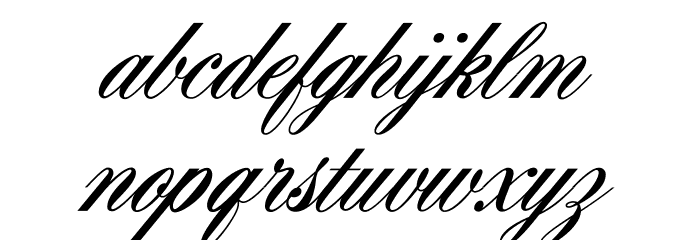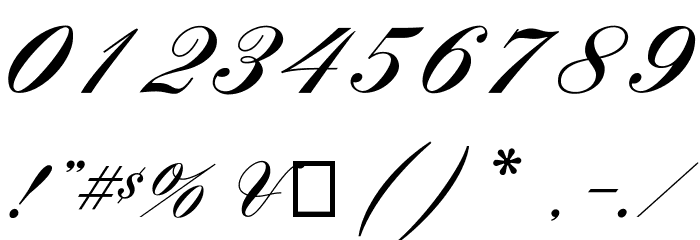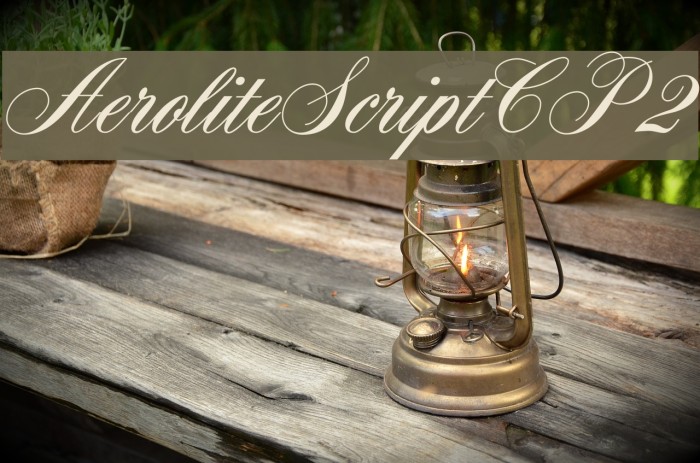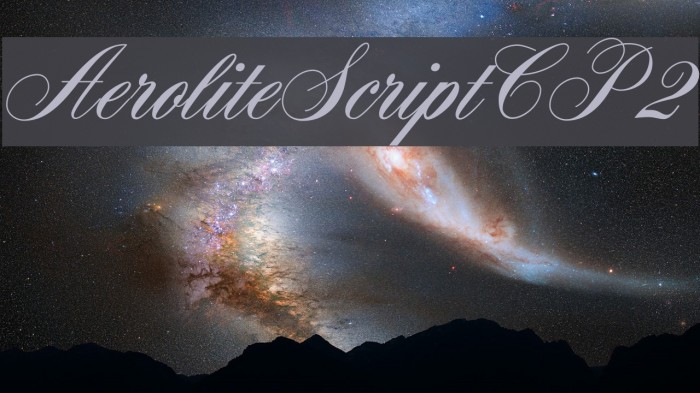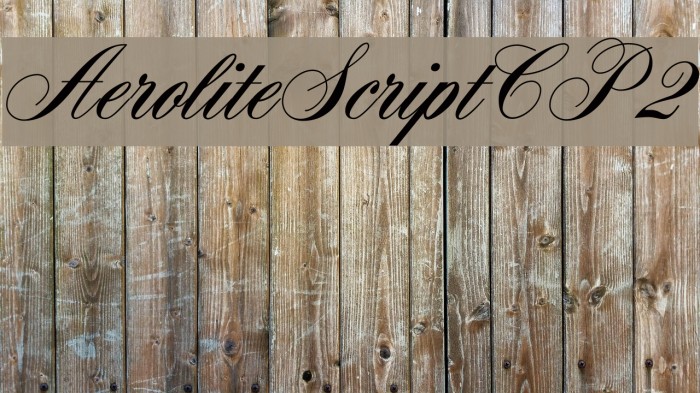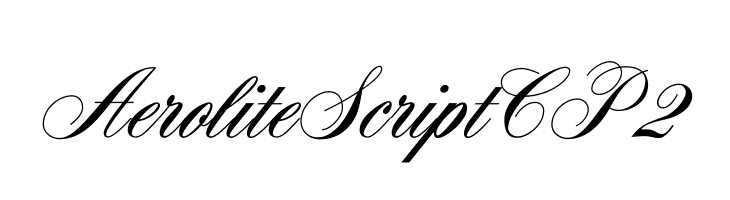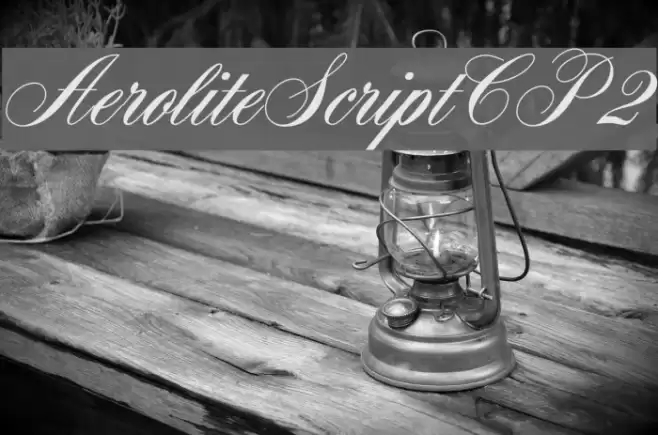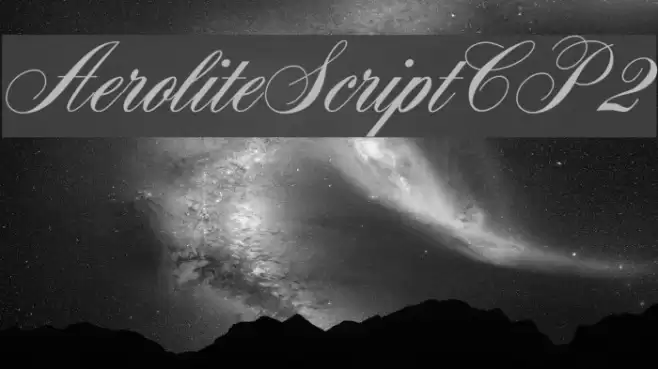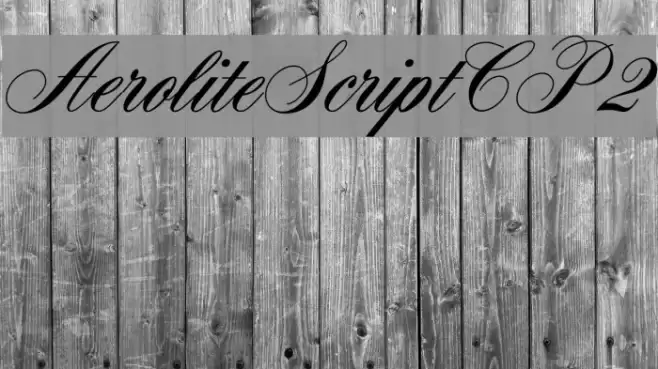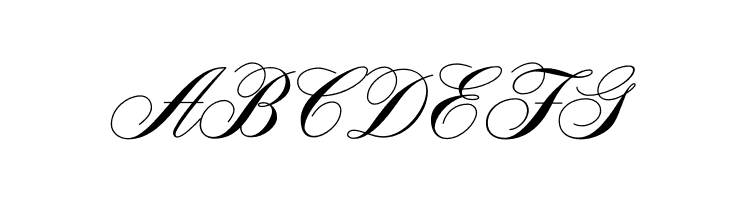
AeroliteScriptCP2 Font
This elegant script font features a flowing, cursive style with smooth, interconnected letters that evoke a sense of sophistication and grace. The uppercase letters are ornate and decorative, with sweeping curves and flourishes that add a touch of luxury. The lowercase letters maintain a consistent slant, enhancing the fluidity of the text. The numerals are stylish and complement the overall aesthetic, while the special characters are designed to match the script's refined appearance. This font is perfect for projects that require a touch of elegance and class.
A sophisticated script font with flowing, interconnected letters and elegant flourishes.
- Proposed Projects: Ideal for wedding invitations, luxury branding, elegant packaging, and high-end product labels.
- Category: Script
- Character Spacing: Tight
- Overall Style: Elegant
- Use Case: Logos, Invitations, Branding